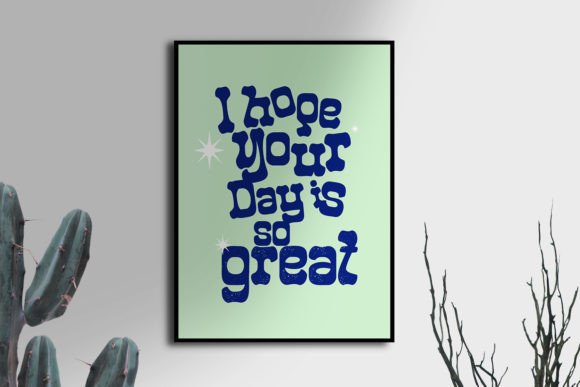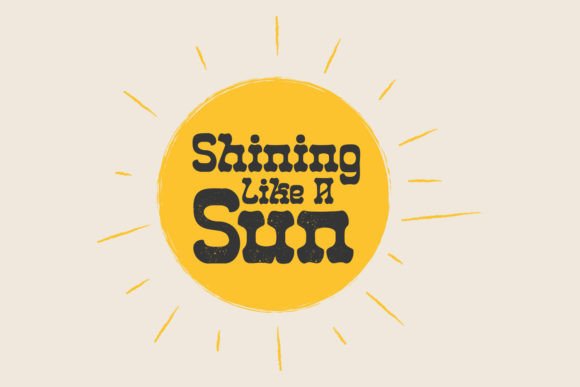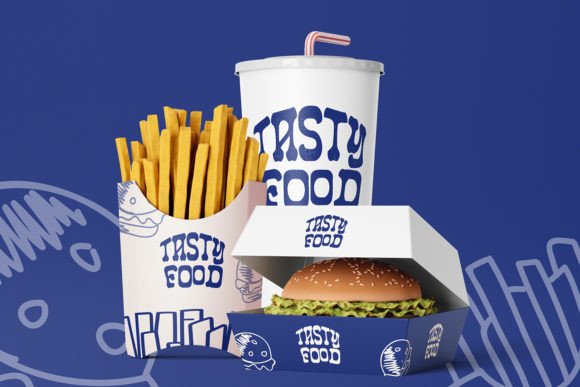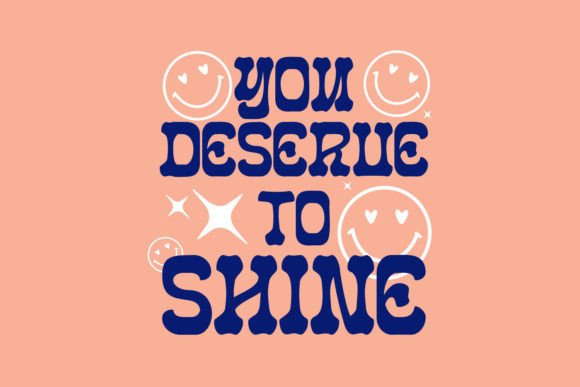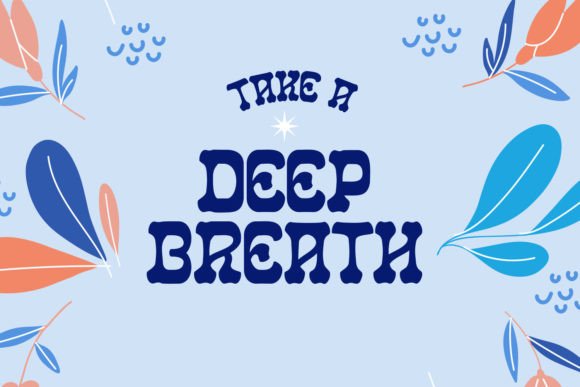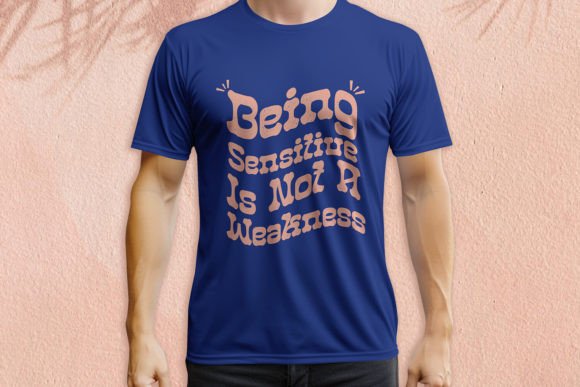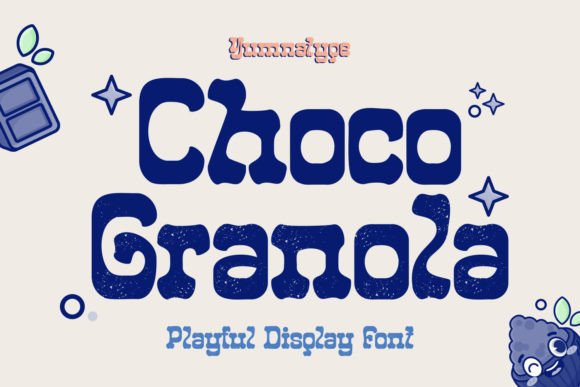
Introducing Choco Granola Font: The Sweetest Addition to Your Design Collection
Are you tired of using the same old fonts in your designs? Look no further! Choco Granola Font is here to add a playful and whimsical touch to your creations. This delightful display font is perfect for designers and crafters who want to convey a sense of joy and fun in their work.
The Charm of Choco Granola
Each letter in Choco Granola is meticulously designed with rounded shapes that add a soft and inviting vibe to your text. The thick weight of the font adds a sense of solidity and presence, making it perfect for headings, titles, and other display text. But what really sets Choco Granola apart is its uneven outline, which adds an extra layer of quirkiness and character to the font.
Conveying Joy and Whimsy
Choco Granola Font is designed to convey a sense of joy and whimsy, making it perfect for designs that require a playful touch. Whether you’re creating a logo, a poster, or a social media graphic, Choco Granola is sure to bring a smile to your audience’s face. The font’s unique charm is sure to make your designs stand out from the crowd and leave a lasting impression.
Features of Choco Granola Font
• Rounded shapes: Each letter in Choco Granola is designed with rounded shapes that add a soft and inviting vibe to your text.
• Thick weight: The thick weight of the font adds a sense of solidity and presence, making it perfect for headings and titles.
• Uneven outline: The uneven outline adds an extra layer of quirkiness and character to the font, making it truly unique.
• Playful and whimsical: Choco Granola Font is designed to convey a sense of joy and whimsy, making it perfect for designs that require a playful touch.
Choco Granola Font is perfect for designers and crafters who want to add a touch of personality to their work. Whether you’re creating digital designs or handmade crafts, Choco Granola is sure to be a valuable addition to your collection. The font’s playful and whimsical nature makes it perfect for a wide range of projects, from children’s designs to adult-themed creations.
Tips for Using Choco Granola Font
Here are a few tips for getting the most out of Choco Granola Font:
• Use it as a display font: Choco Granola Font is perfect for headings, titles, and other display text.
• Experiment with colors: The playful nature of Choco Granola makes it perfect for experimenting with bright and bold colors.
• Pair it with other fonts: Choco Granola pairs well with a wide range of fonts, so don’t be afraid to get creative and try out different combinations.
In conclusion, Choco Granola Font is a unique and playful display font that is sure to add a touch of whimsy to your designs. With its rounded shapes, thick weight, and uneven outline, Choco Granola is the perfect choice for designers and crafters who want to convey a sense of joy and fun in their work. So why not give Choco Granola a try and see how it can elevate your designs to the next level?